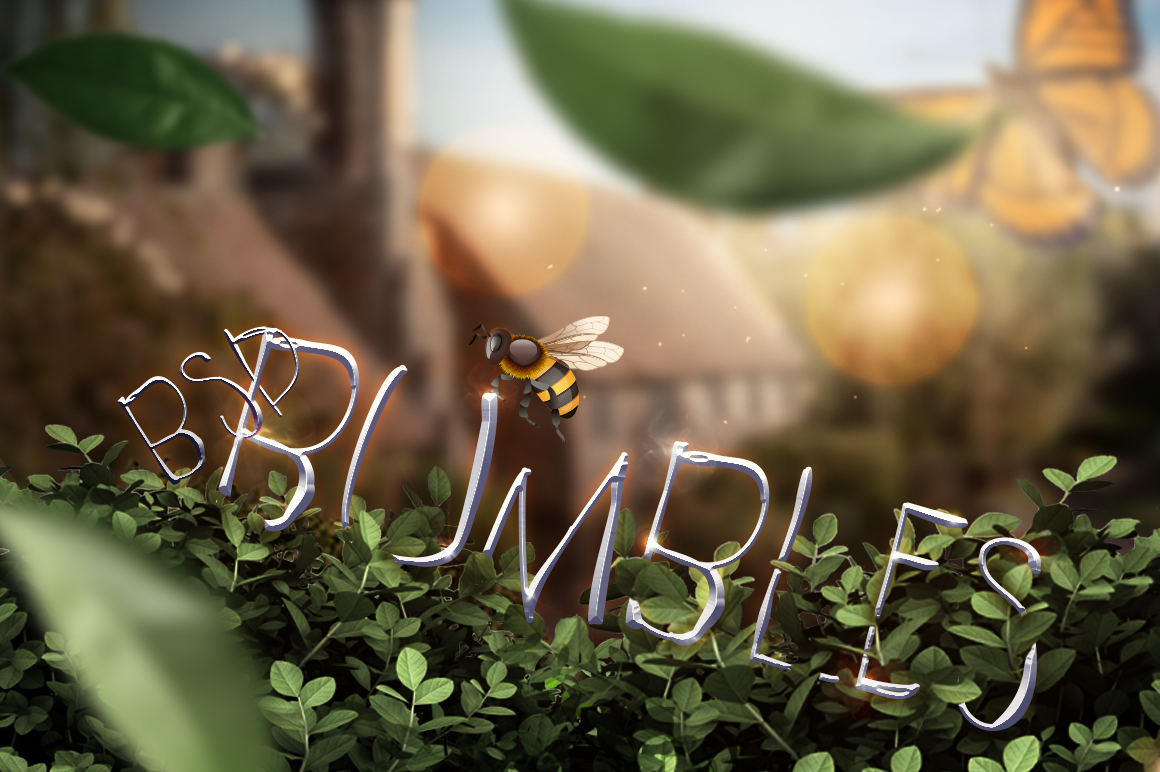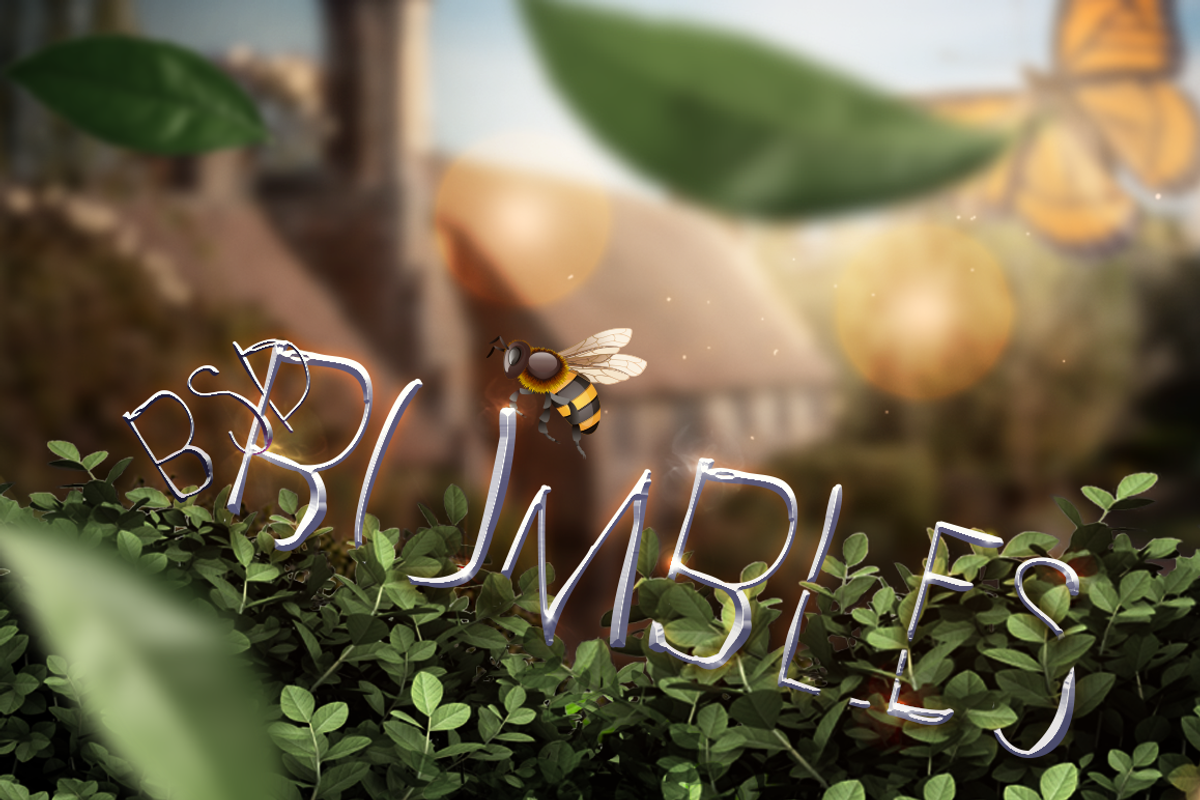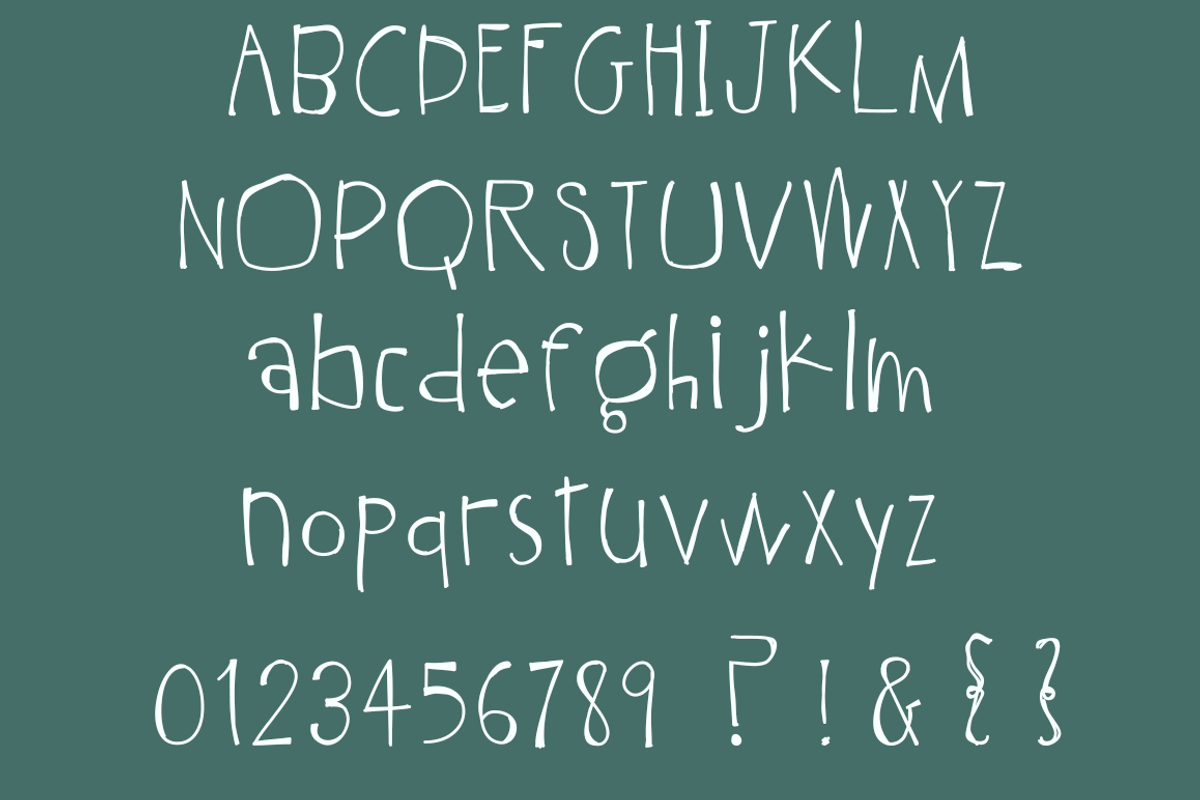
BSD Bumbles Font
Silly, weird, a little odd. Bumbles is an expressive, quirky decorative .otf. With Caps and littles, a few important extras
Put a little silly in your text :)